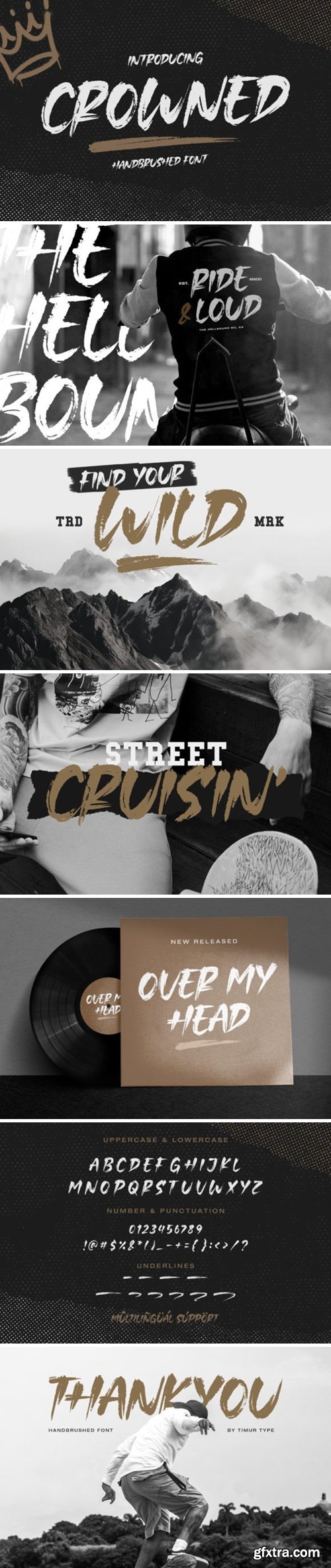
皇冠字体
Crowned is a handbrushed font that is modern and fresh, and will bring a warm and inviting feel to your projetcts. It is perfect for product packaging, branding projects, magazines, social media, weddings, or just used to express words above a text overlay.